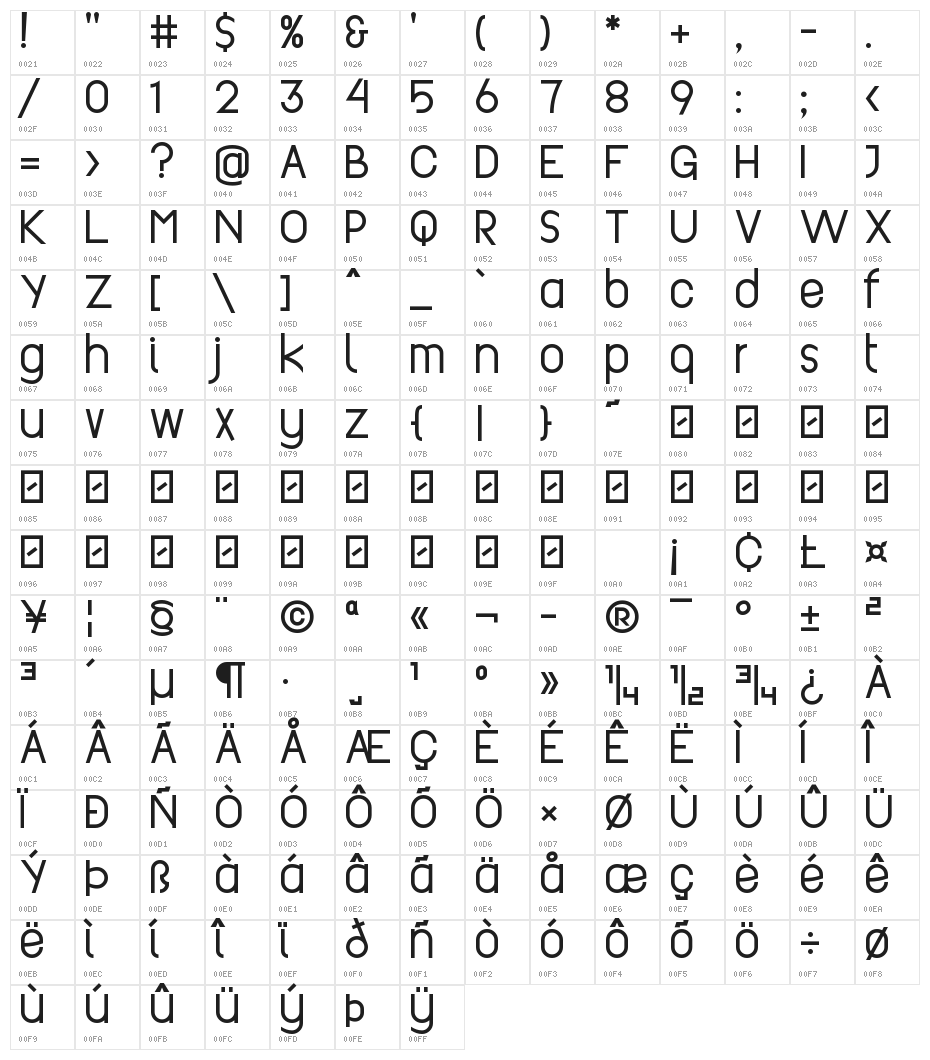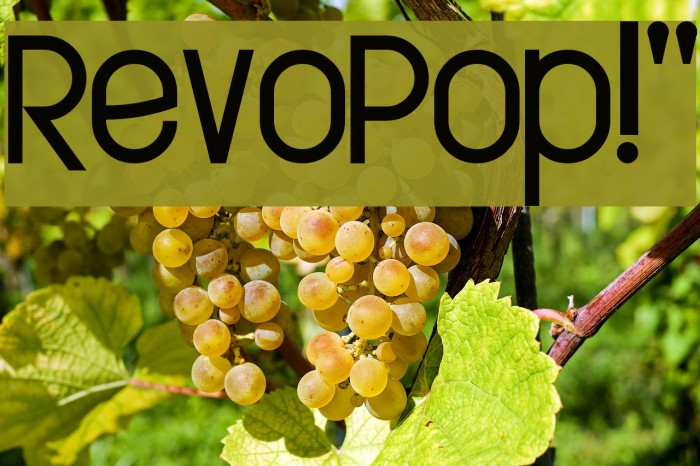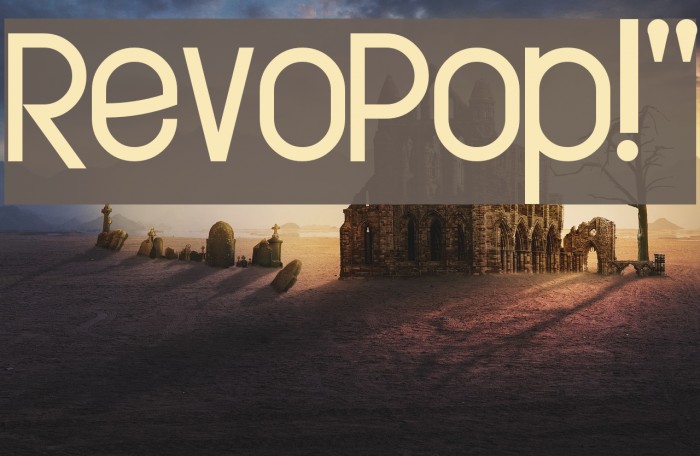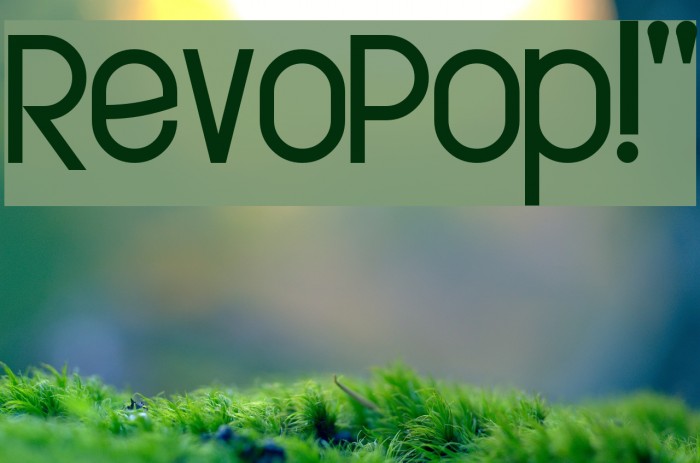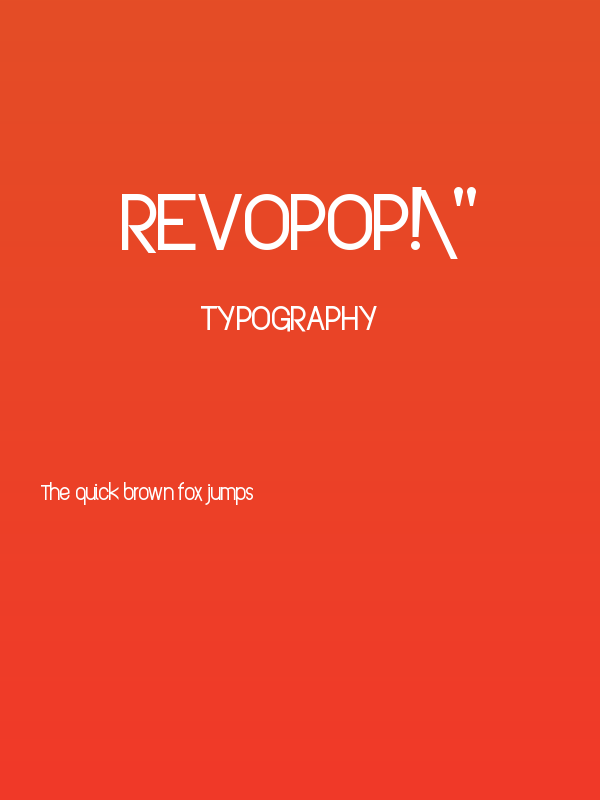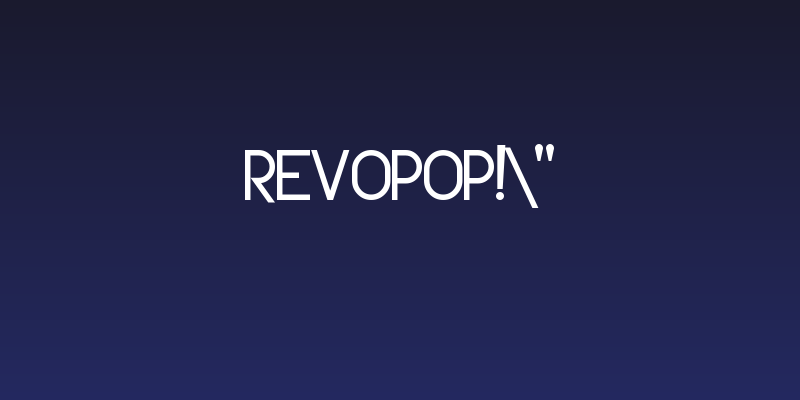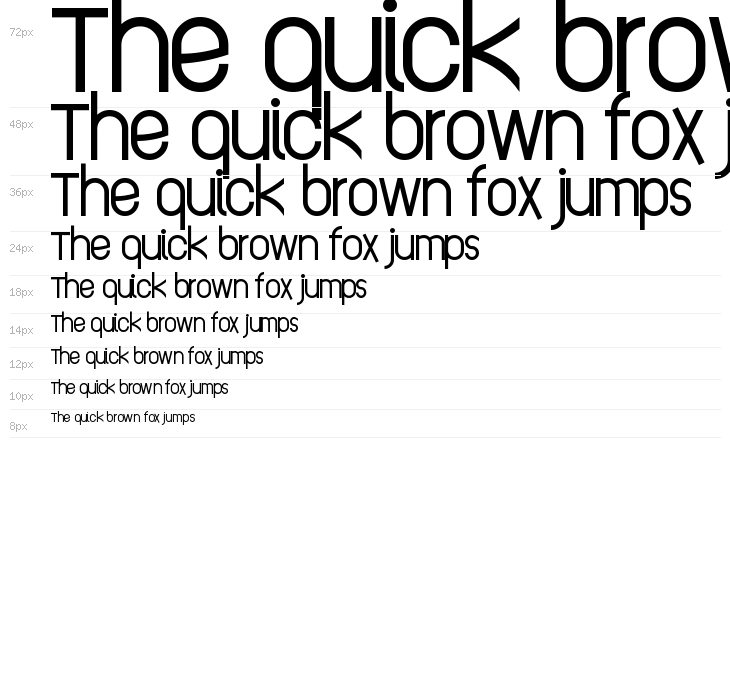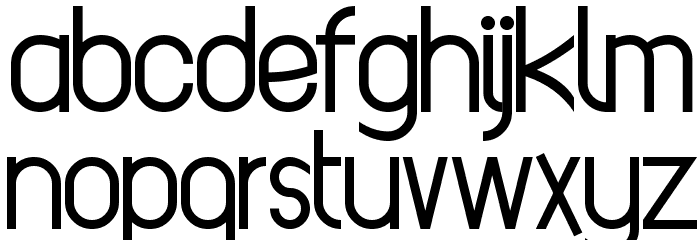
RevoPop!" Font
RevoPop!" Description
This font features a modern and clean design with geometric influences. The characters are constructed with consistent stroke widths, giving it a uniform appearance. The uppercase letters are bold and assertive, while the lowercase letters maintain a friendly and approachable feel. The numerals are clear and easy to read, making them suitable for various applications. Special characters are well-integrated, maintaining the overall aesthetic. The font's simplicity and clarity make it versatile for both digital and print media.